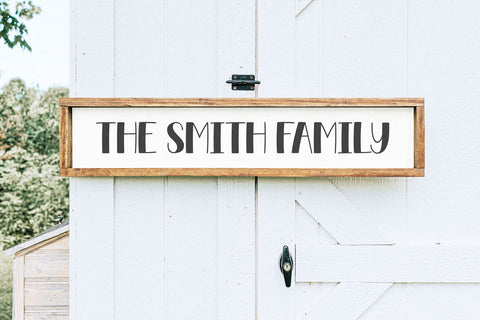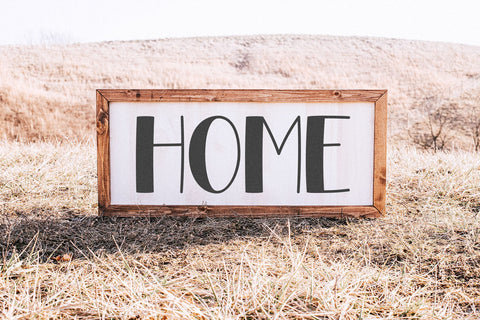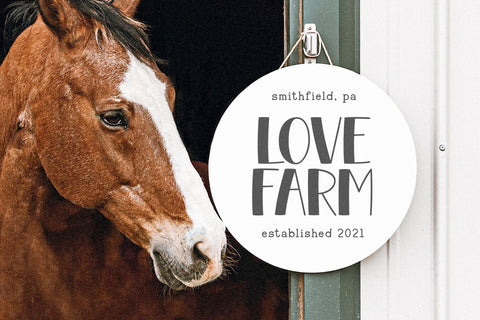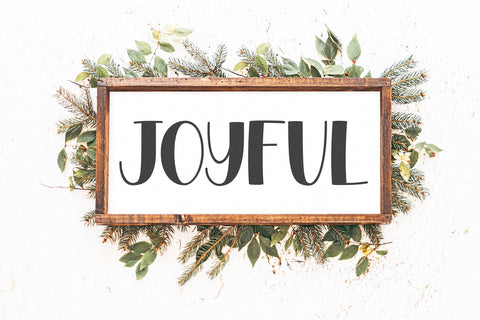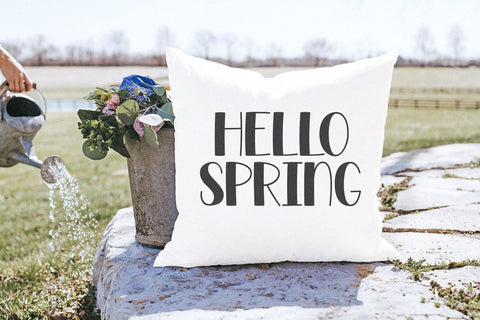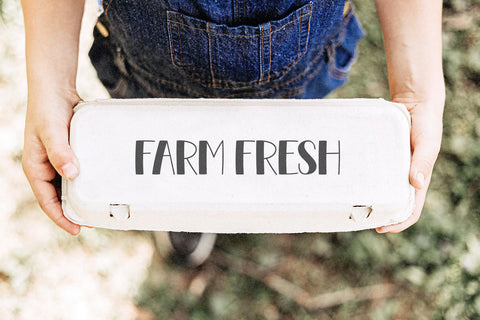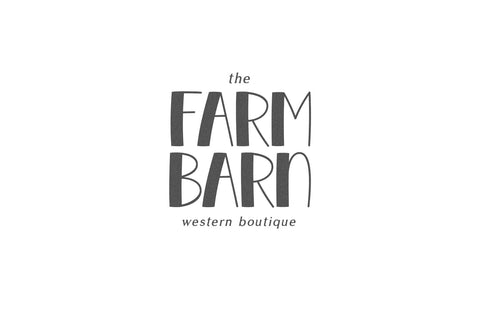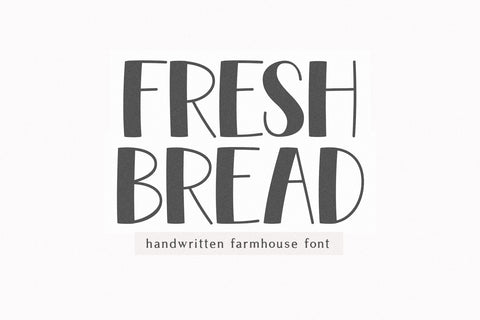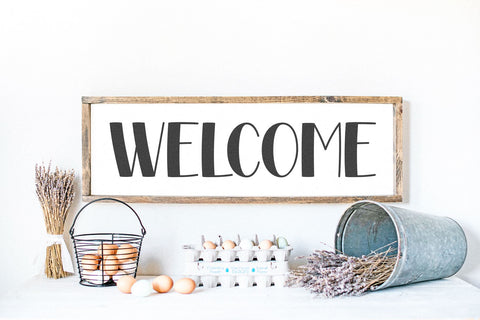
Fresh Bread - Farmhouse Font
Fresh Bread is a handwritten farmhouse font.
This font is perfect for farmhouse decor, signs, shirts, svg files, cricut projects, stickers, logos, farmhouse signs and more!